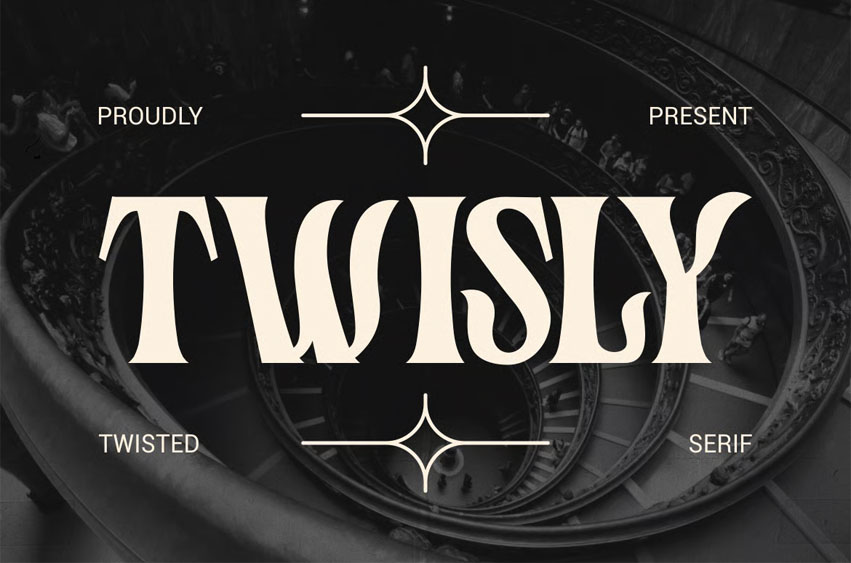
Twisly Twisted Font
Twisly Twisted Font Serif Font is a modern display serif with distinctive curved distortions and elegant structure. The letterforms feature high contrast between thick stems and thin strokes, creating a refined visual rhythm. Each character appears tall with slightly condensed proportions and sharp vertical emphasis. The serifs are stylized with subtle twists and unconventional curves, adding a unique personality. Some terminals extend with soft bends that create a flowing yet structured appearance. The stroke transitions feel smooth but controlled, balancing elegance and artistic expression. Twisly Twisted Serif Font blends classic serif tradition with a contemporary experimental touch. The design communicates sophistication, style, and creative confidence. It works effectively for logos, editorial titles, and premium branding.
The twisted serif structure creates a distinctive tone for fashion and lifestyle design projects. Designers can use this typeface for logo design, magazine headlines, and branding systems. It fits perfectly with themes related to fashion, luxury products, and modern editorial layouts. The tall proportions and high contrast strokes ensure strong visibility in large formats. Twisly Twisted Serif Font also works well for posters, book covers, packaging labels, and advertising materials. It suits branding for beauty brands, creative studios, luxury services, and boutique businesses. The expressive letterforms help build a memorable and stylish visual identity. This typeface supports both elegant and experimental design directions.